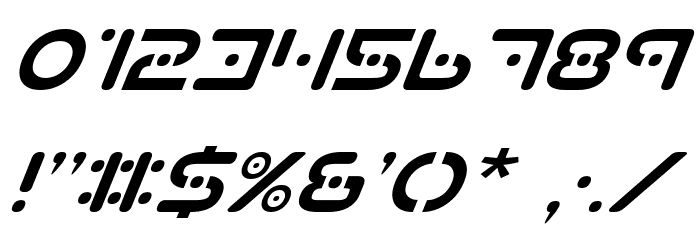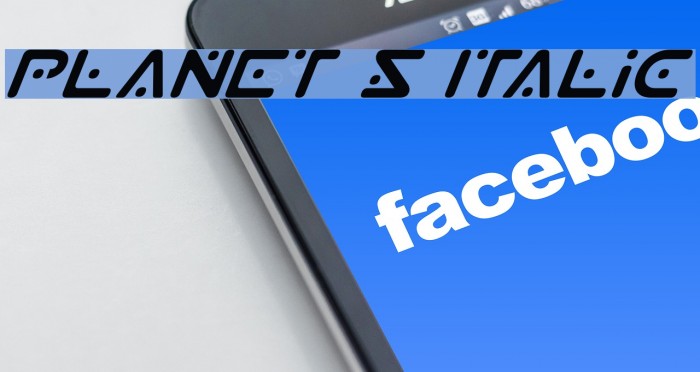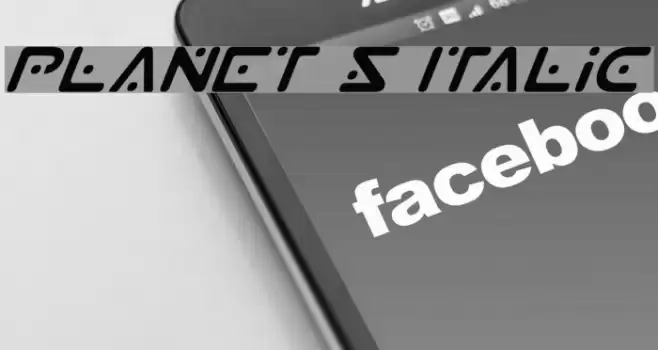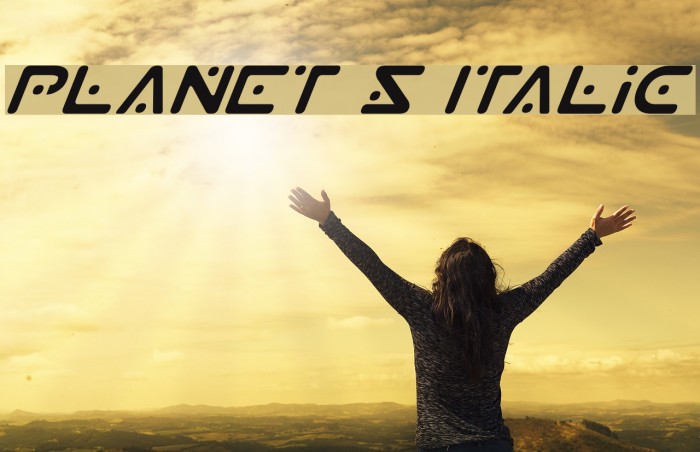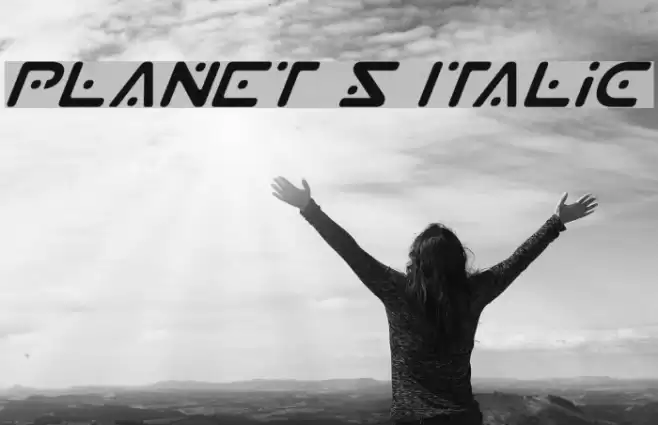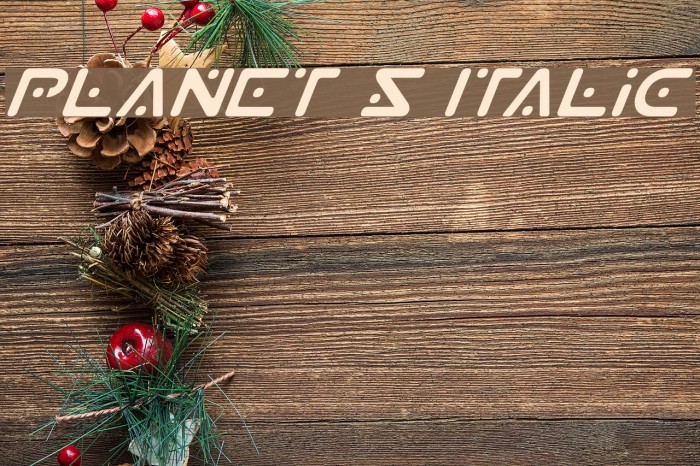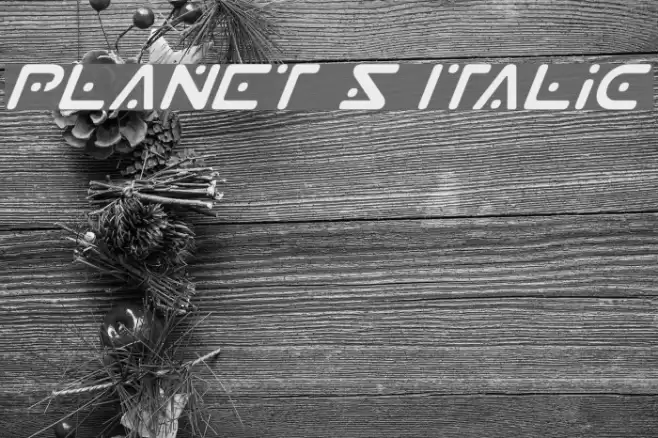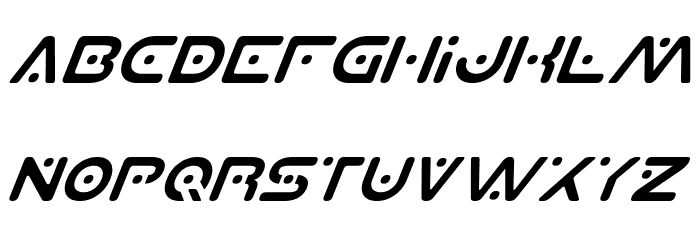
Planet S Italic Font
Planet S Italic Description
This font exhibits a futuristic and sleek design, characterized by its italicized and streamlined letterforms. The characters are crafted with a distinct geometric style, incorporating sharp angles and smooth curves that convey a sense of motion and modernity. The font's unique aesthetic is further enhanced by its consistent use of rounded edges and a slight forward slant, giving it a dynamic and energetic appearance. The spacing between characters is tight, contributing to its compact and cohesive look. This font is ideal for projects that aim to capture a contemporary and innovative feel.
| Use Case | Headlines, Logos, Digital interfaces |
| Proposed Projects | Ideal for sci-fi themed designs, technology branding, modern advertising, and digital interfaces. |